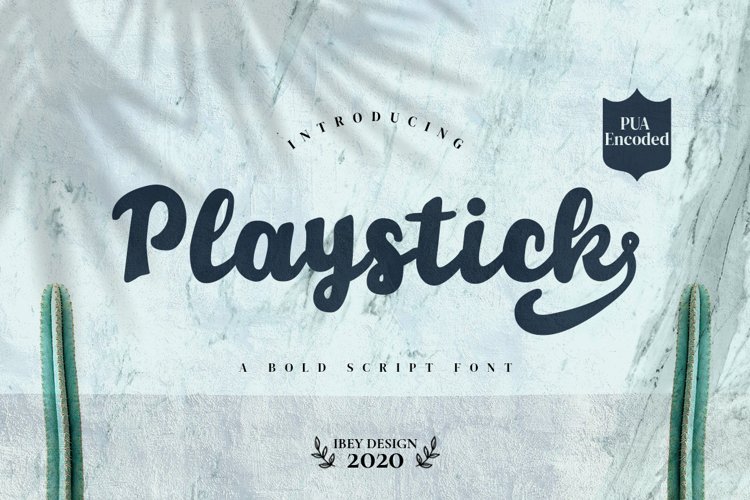
Playstick - Bold Script Font
Playstick
Playstick Bold Script Font feels incredibly elegant and flowing. It looks stunning on wedding invitations, thank you cards, quotes, greeting cards, logos, business cards and every other design which needs a handwritten touch. It features a varying baseline, smooth lines, gorgeous glyphs and stunning alternates.
Playstick Bold Script Font is PUA encoded which means you can access all of the glyphs and swashes with ease!